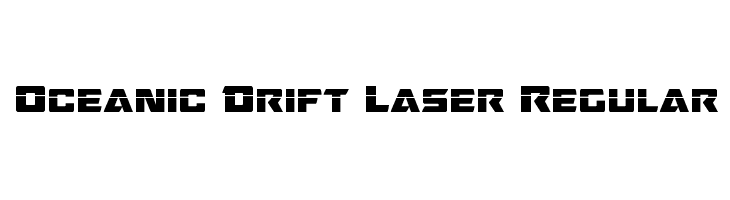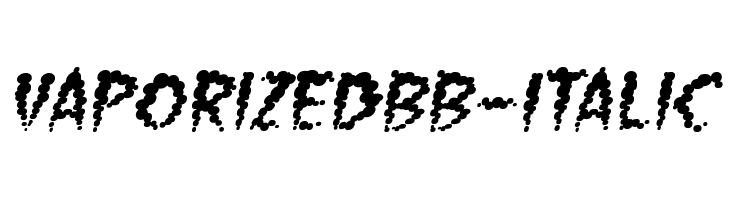
A bold, futuristic font with a geometric and angular design.
A bold, hand-drawn font with textured, sketch-like characters.
A bold, futuristic font with sharp, angular shapes.
A playful, bold font with rounded, bubble-like characters.
A bold, decorative font with thick, blocky letterforms and high contrast.
A bold, three-dimensional font with a striking shadow effect.
A bold, distressed font with a vintage, hand-drawn appearance.
A bold, geometric outline font with an italic slant and futuristic style.
A bold, hand-drawn font with an expressive and dynamic style.
A bold, expressive script font with flowing, cursive letterforms.